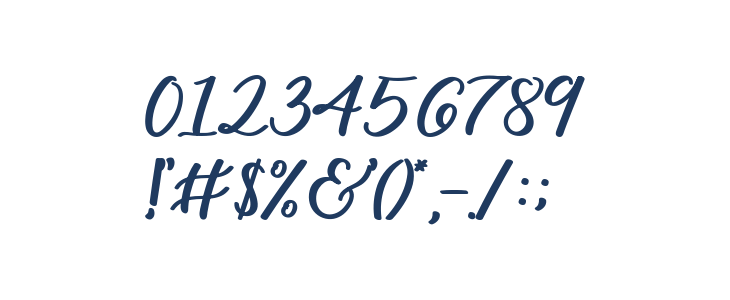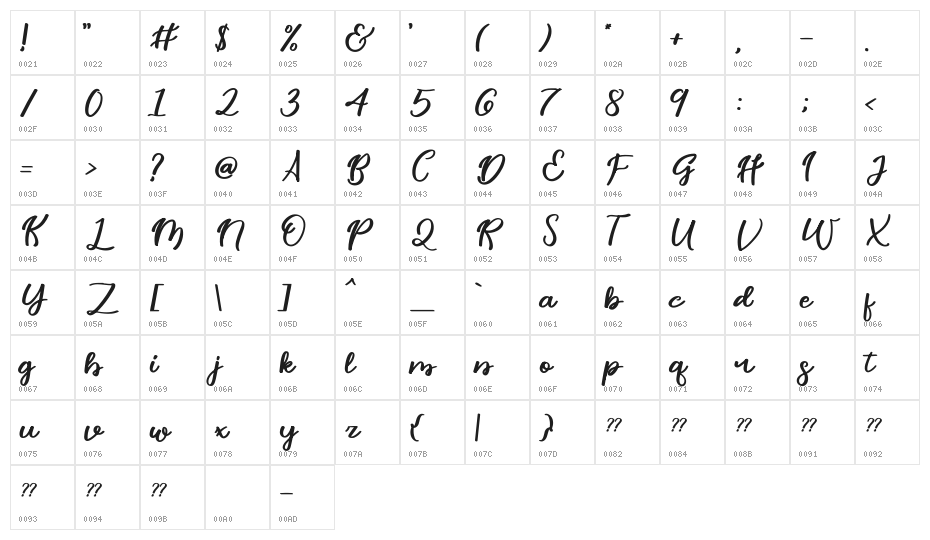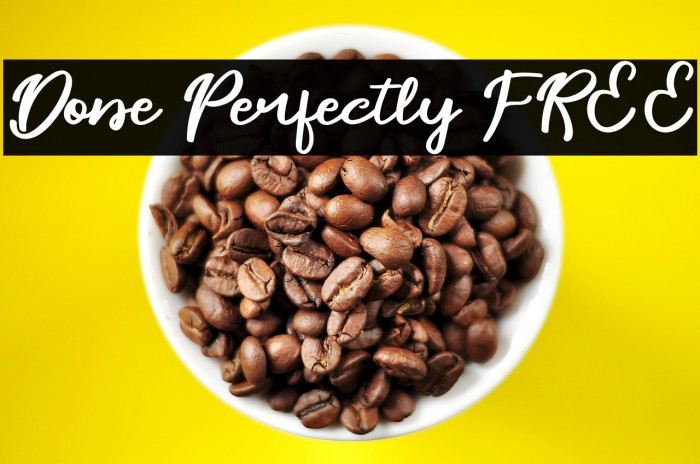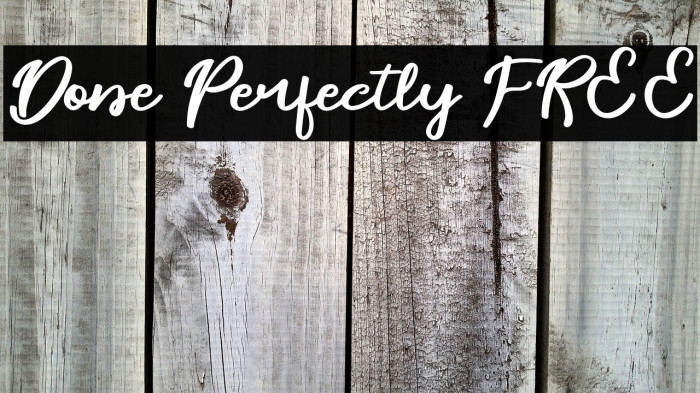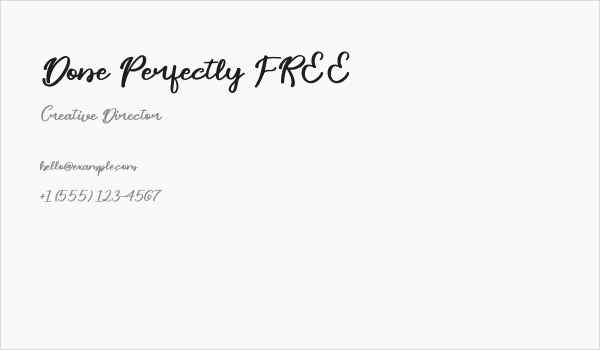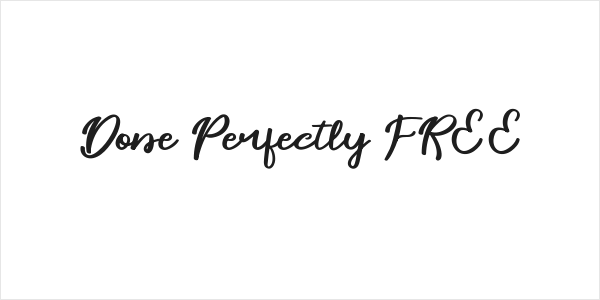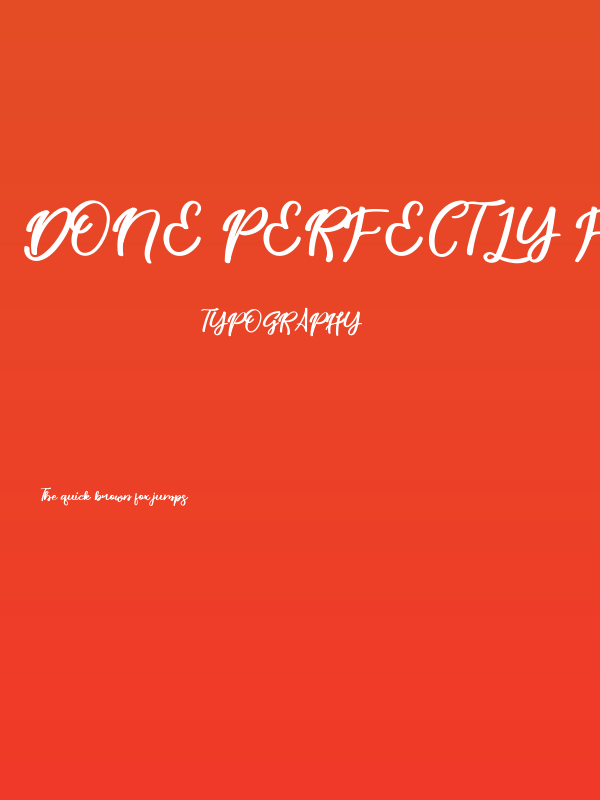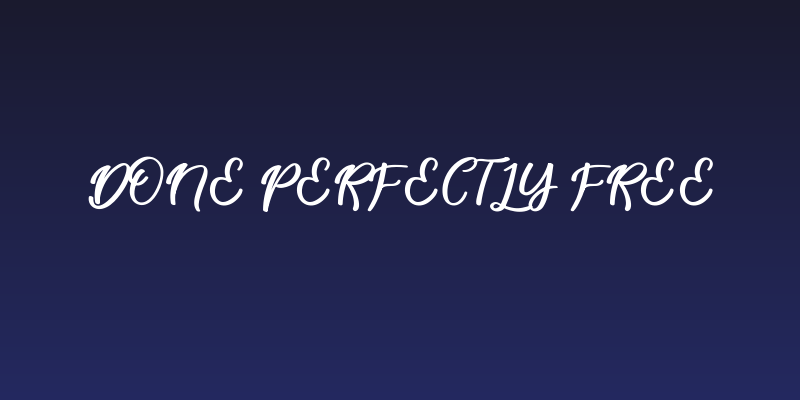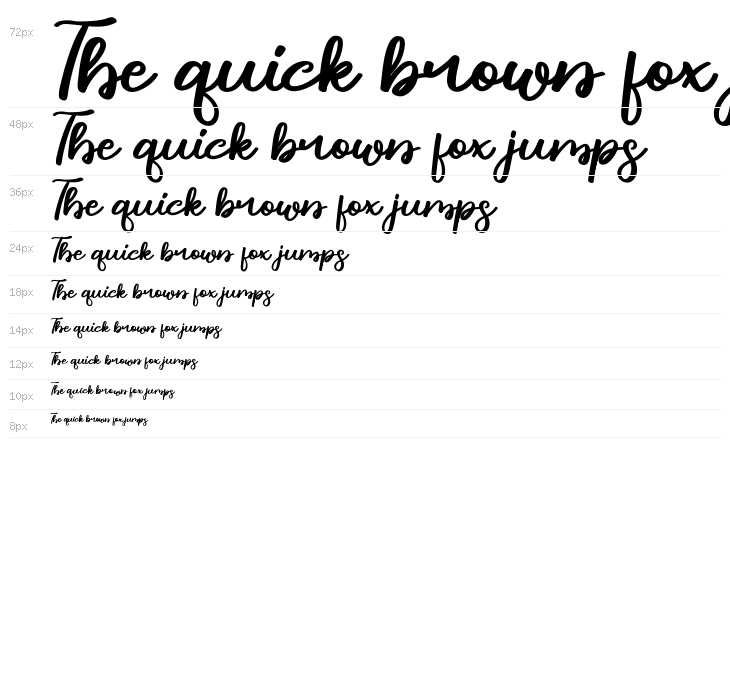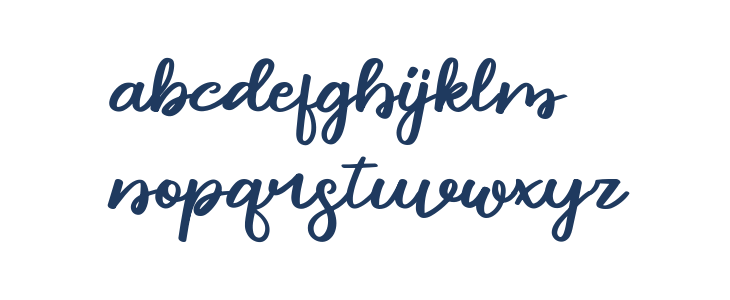
Done Perfectly FREE Font
Done Perfectly FREE Description
This font features a lively and expressive script style, characterized by its fluid and connected letterforms. The uppercase letters exhibit a bold and dynamic presence, while the lowercase letters maintain a consistent flow with elegant loops and curves. The numerals are crafted with a similar flair, ensuring a cohesive look throughout. Special characters are seamlessly integrated, adding to the font's versatility. The overall design exudes a sense of creativity and playfulness, making it suitable for projects that require a personal and artistic touch.
| Proposed Projects | Ideal for wedding invitations, greeting cards, branding, and artistic projects that require a personal touch. |